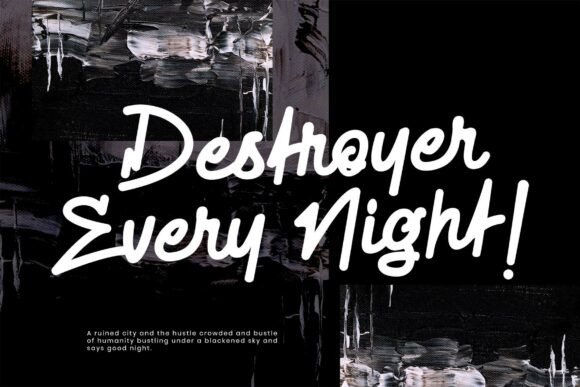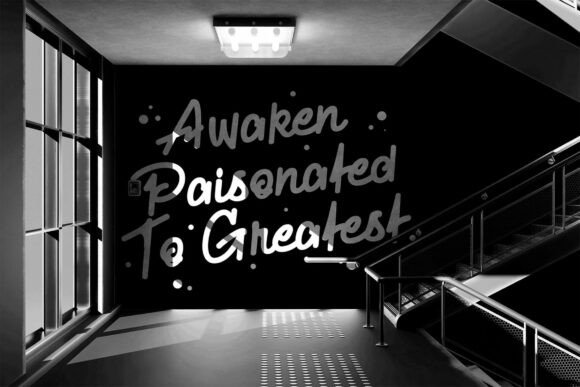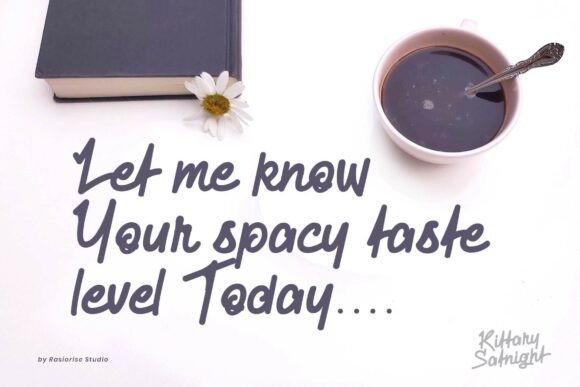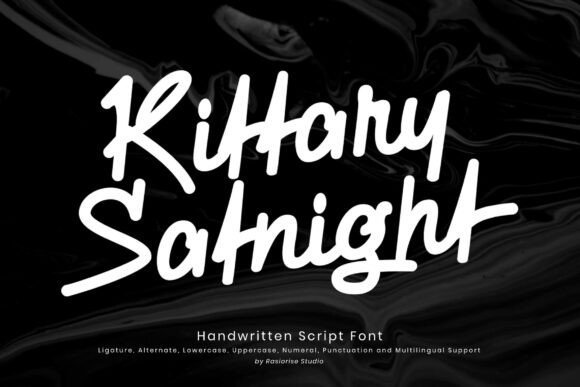
Introduction to Kittary Satnight Font
Kittany Satnight is a casual and energetic handwritten script font that captures the feeling of effortless, marker-style lettering.
It features bold, fluid strokes with a natural “bouncy” rhythm and slightly irregular terminals that provide an authentic, hand-drawn character The font includes versatile features such as ligatures and alternates to enhance its organic flow.
Key Features of Kittary Satnight Font